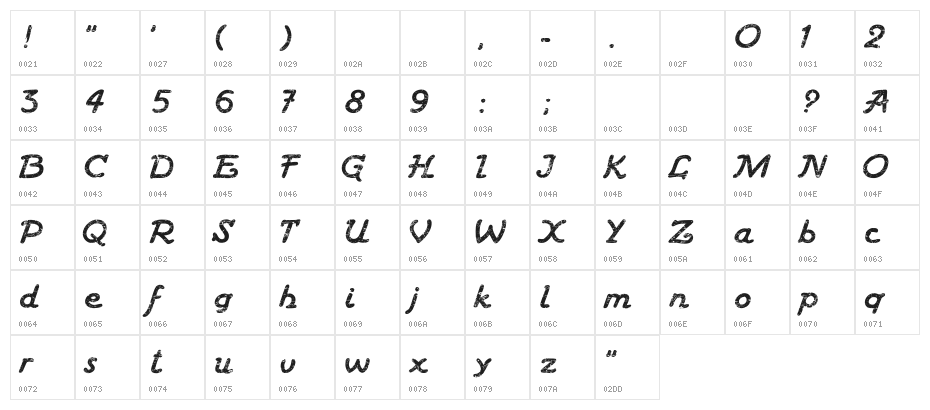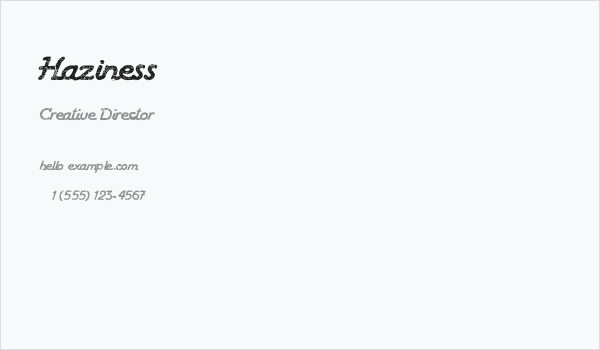
Haziness Font
Haziness Description
This font exhibits a distressed, grunge style with a textured appearance that gives it a worn, vintage look. The characters are bold and slightly italicized, with a consistent slant that adds a dynamic feel. The uppercase and lowercase letters maintain a uniform style, with rounded edges and a playful, casual vibe. The numbers and special characters follow the same design, ensuring a cohesive look across all glyphs. This font's unique texture and style make it stand out, perfect for projects that require an edgy, artistic touch.
| Overall Style | Vintage, Decorative |
| Proposed Projects | Ideal for album covers, posters, branding for edgy or artistic products, and any design requiring a vintage or distressed look. |